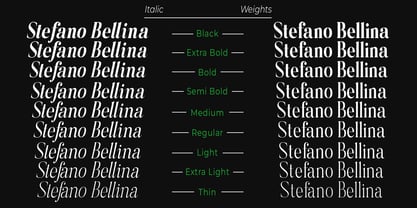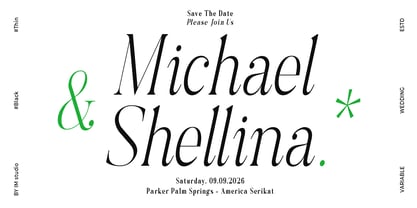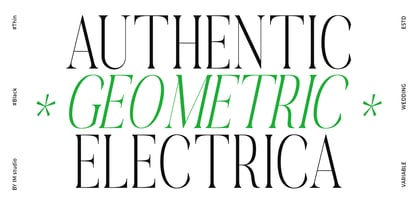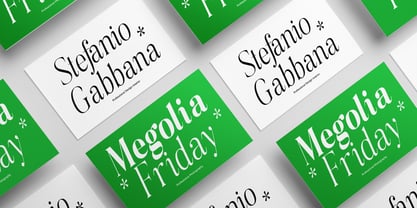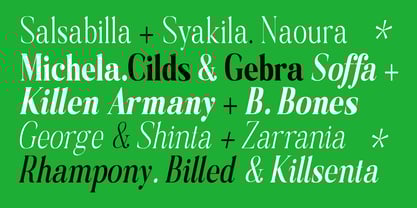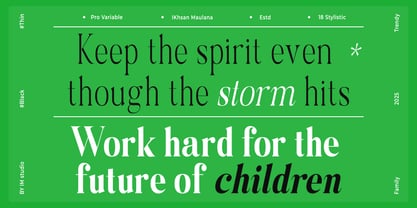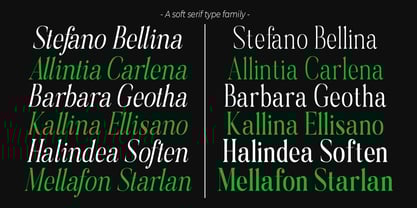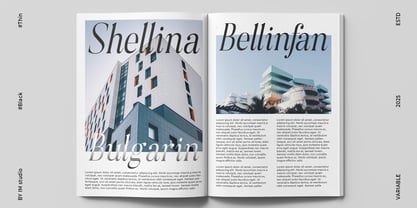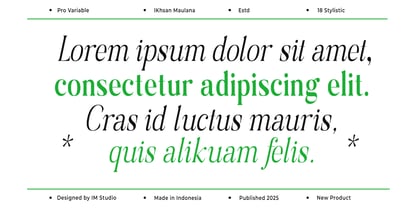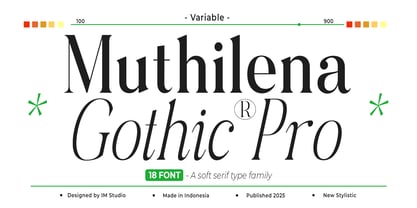
Muthilena Gothic
La familia tipográfica Muthilena Gothic fue diseñada por Ikhsan Maulana y publicada por IM Studio. Muthilena Gothic contiene 18 estilos y opciones de paquete familiar. Más información sobre esta familia
Introducing Muthilena Gothic: A Typeface for Timeless Elegance
Experience the allure of timeless sophistication with Muthilena Gothic, a thoughtfully designed typeface that blends classic elegance with a contemporary aesthetic. With high-contrast strokes and graceful curves, Muthilena Gothic provides a captivating visual harmony to elevate any design project.
Perfect for sophisticated editorial layouts, memorable brand identities, or attention-grabbing websites, Muthilena Gothic’s subtle flexibility and beauty ensure your designs stand out. Each character embodies strength and elegance, from the finely chiseled serifs to the perfectly balanced proportions, celebrating the timeless appeal of classic typography. Its true italics offer a unique style and dynamic movement, adding visual interest and enhancing readability.
Key Features:
Effortless Elegance: Clean lines and balanced proportions exude classic charm, making it ideal for a variety of applications.
Advanced OpenType Features: Unlock advanced typography options, including ligatures, for full creative control.
True Italics: Careful italics complement the upright characters, creating a harmonious visual flow.
Perfect For:
Editorial Design: Ideal for magazines, newspapers, and books, combining elegance with readability for long-form content.
Branding & Logos: Create a sophisticated and memorable brand identity with the timeless appeal of Gathena Serif.
Web Design: Clean lines and high contrast ensure optimal readability on screens of all sizes.
Packaging & Print: Add a touch of class to your product packaging and printed materials.
Invitations & Stationery: Make a lasting impression with Gathena Serif’s elegant presence on invitations, greeting cards, and more.